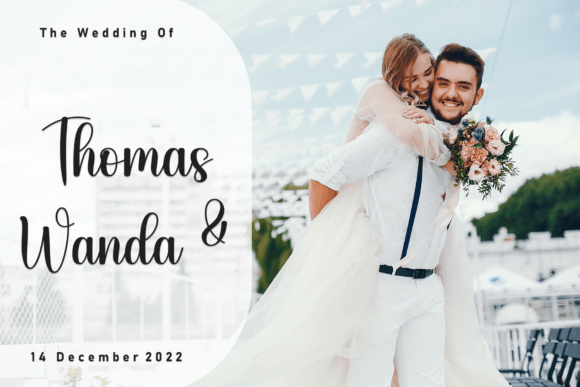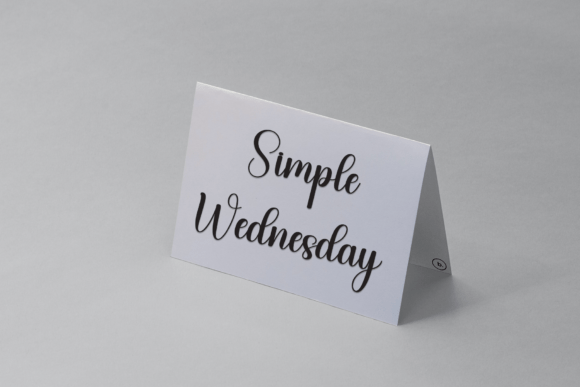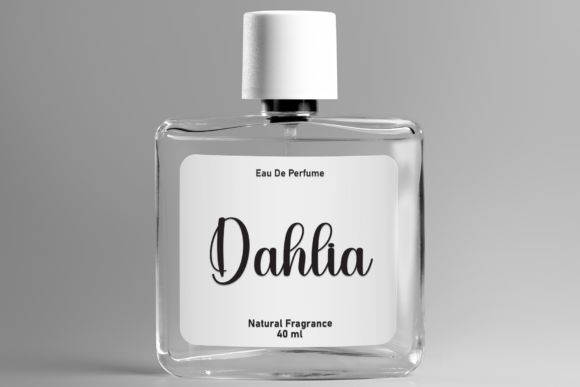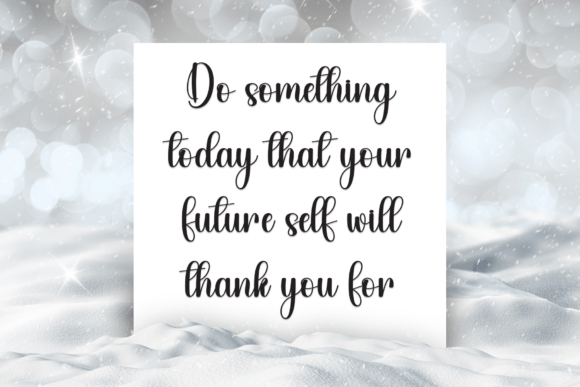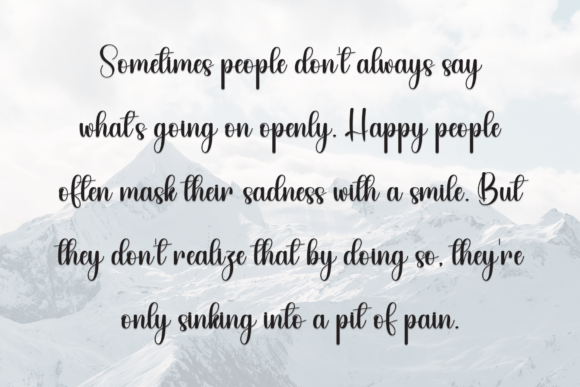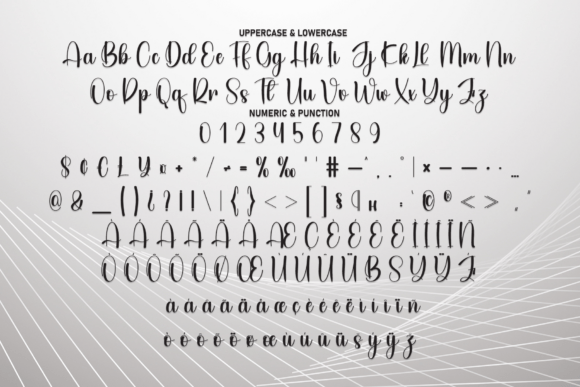
Introducing Backline Font: The Handcrafted Display Font that Brings Joy and Whimsy to Your Designs
Are you tired of using the same old fonts that lack personality and charm? Look no further than Backline Font, a mesmerizingly delightful handcrafted display font that harmoniously fuses gentleness with allure. This font is not just a typeface, but an indispensable resource for crafting enchanting wedding invitations, delightful greetings, or any design yearning for a sprinkle of pure exuberance.
A Font that Animates Every Stroke
Backline Font is infused with an essence of playfulness and innocent elation, making it the perfect choice for designers and crafters who want to add a touch of whimsy to their projects. Each brush stroke tells a tale of merriment, subtly threading charisma into your designs. Whether you’re creating a wedding invitation, a greeting card, or a social media graphic, this font is sure to bring a smile to your audience’s faces.
Distinctive Character that Radiates Warmth
The distinctive character of Backline Font effortlessly radiates warmth, transforming every project into an engaging, heart-stirring dialogue. This font is not just a means of communication, but a way to connect with your audience on a deeper level. With Backline Font, you can create designs that are not only visually stunning but also emotionally resonant.
A Font that Communicates Beyond Mere Words
Backline Font is more than just a font – it’s a way to convey emotions and personality through your designs. Each letter, each stroke, and each curve is carefully crafted to pirouette over the canvas to a rhythm of delight, transforming every penned phrase into a soft articulation of affection. Whether you’re a designer, a crafter, or a DIY enthusiast, this font is sure to become your go-to choice for creating designs that speak to your audience’s hearts.
Perfect for Wedding Invitations, Greetings, and More
Backline Font is particularly well-suited for wedding invitations, greetings, and other designs that require a touch of elegance and whimsy. Imagine creating a wedding invitation that sets the tone for a joyful and playful celebration, or a greeting card that conveys your heartfelt congratulations in a way that’s both personal and stylish. With Backline Font, you can create designs that are not only beautiful but also meaningful.
Why Choose Backline Font?
So why choose Backline Font over other fonts? Here are just a few reasons:
- Unique and Handcrafted: Backline Font is a one-of-a-kind, handcrafted font that is sure to stand out in a sea of generic typefaces.
- Playful and Whimsical: This font is infused with an essence of playfulness and innocent elation, making it perfect for designs that require a touch of whimsy.
- Emotionally Resonant: Backline Font is designed to communicate beyond mere words, creating designs that are emotionally resonant and engaging.
- Versatile: This font is suitable for a wide range of designs, from wedding invitations to social media graphics.
Get Ready to Fall in Love with Backline Font
In conclusion, Backline Font is a handcrafted display font that is sure to bring joy and whimsy to your designs. With its distinctive character, playful personality, and emotionally resonant qualities, this font is the perfect choice for designers and crafters who want to create designs that speak to their audience’s hearts. So don’t miss out on this opportunity to take your designs to the next level – download Backline Font today and start creating designs that are truly enchanting.